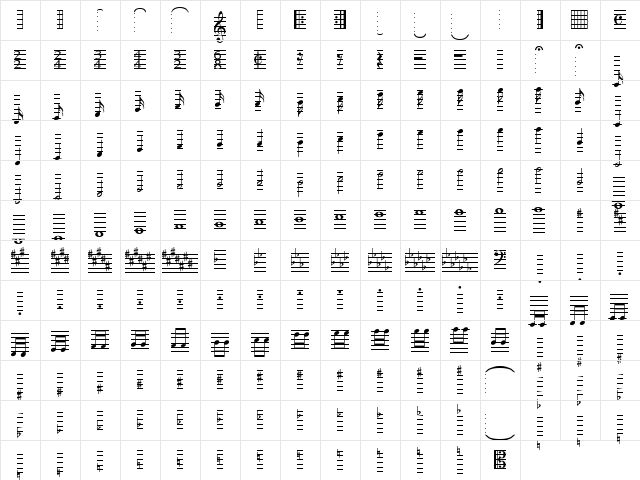
MusiQwikB Regular Font Preview
MusiQwikB Regular
MusiQwikB Regular Font Details
| Foundry | Designed by an amateur: Free, and worth it! |
| Designer | Robert Allgeyer (Santa Cruz, CA USA) |
Design Context for MusiQwikB Typeface
MusiQwikB takes a measured approach to typography — its balanced proportions and neutral character make it a reliable workhorse for both digital and print work.